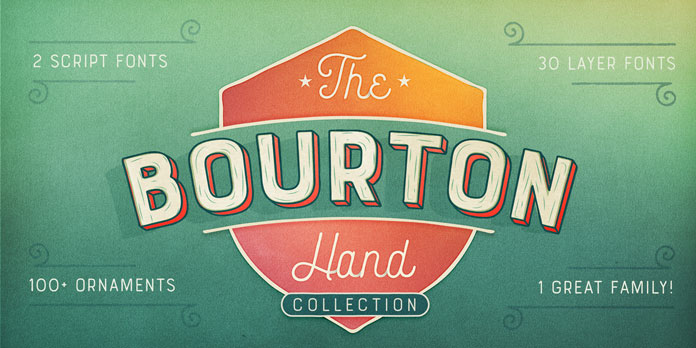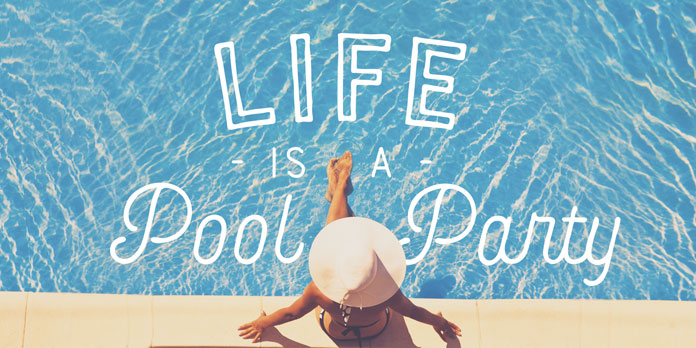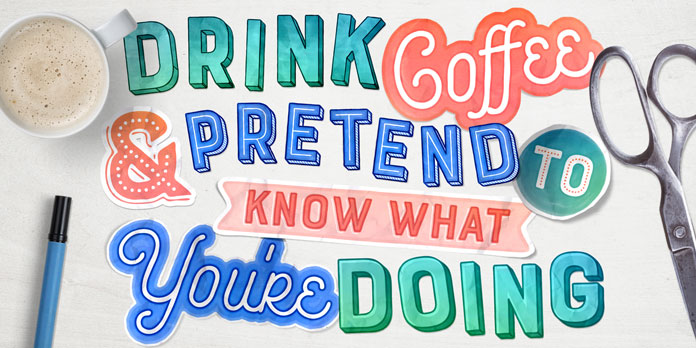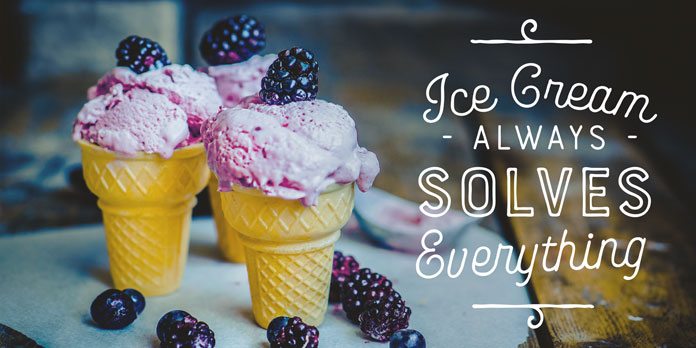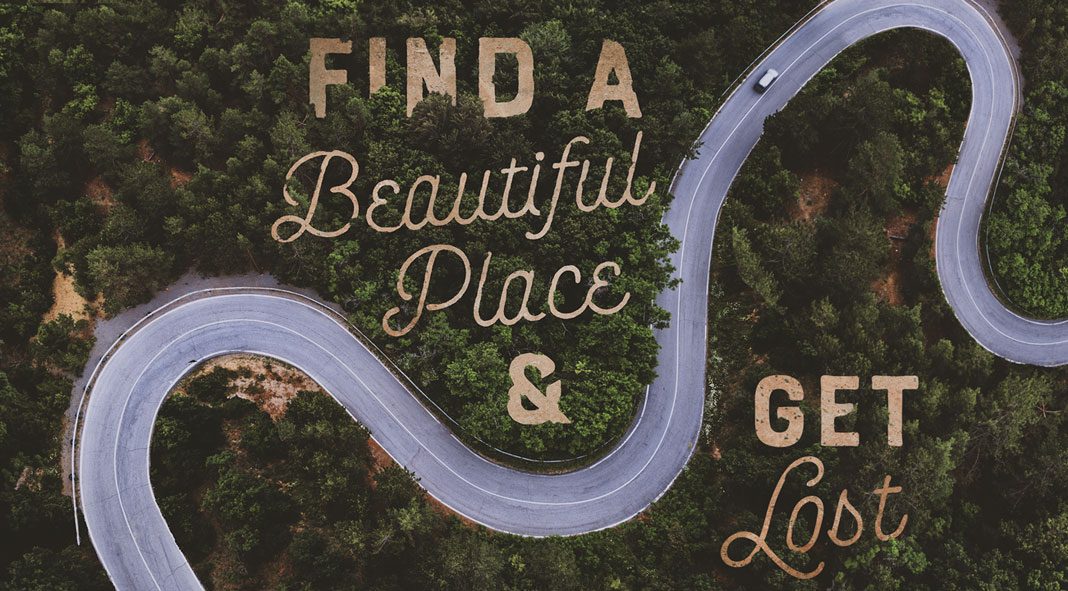
Bourton Hand, a new layered font family with lots of typographic features.
Designed and published in 2017 by Kimmy Kirkwood of foundry Kimmy Design, Bourton Hand is a hand drawn version of the Bourton font and a sans-serif counterpart to the Burford typeface. The family comes with numerous layering styles that can be combined in various ways. In addition, Bourton Hand includes lots of stylistic alternatives, graphic extras and a special script font version. This family is well suited for logo designs, quotes, t-shirt prints, posters, and diverse kinds of web and print design.
The family comes with 6 base layer typefaces (Base, Inline, Marquee, Stripes A, Stripes B, Stripes C, Sketch A, Sketch B), 6 top layer styles (Base Drop, Dots, Line Light/Medium/Bold, Outline Light/Medium/Bold), 6 extrude fonts (Extrude, Outline, Shadow, Extrude Outline), 5 fonts for drop shadows plus 5 solo styles (Drop Shadow, Drop Extrude, Drop Line, Drop Stripes A, Drop Stripes B), 2 line typefaces for secondary text styles (Line Medium, Line Bold), a script version in two weights, and plenty of graphic extras such as ornaments, banners, frames, borders, flags, line breaks, and flourishes.